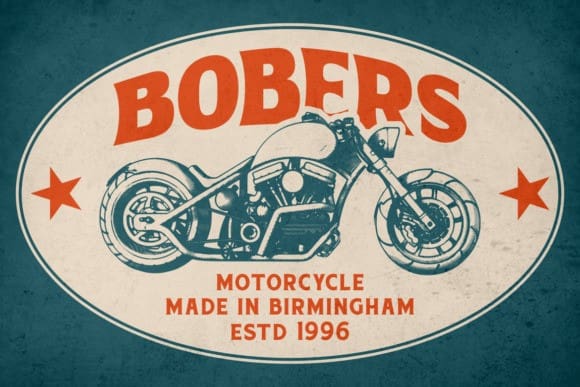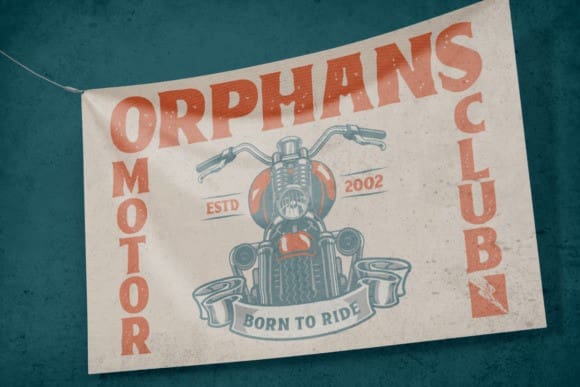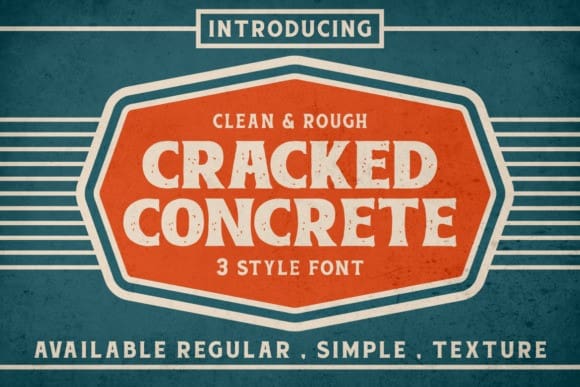
Cracked Concrete Font
Cracked Concrete Font – Vintage Serif Font is a typographical masterpiece that instantly transports you to the golden age of classic design. This font exudes timeless charm with its bold, classic serif characters that embrace the aesthetics of retro and vintage design.
The font offers two distinct versions to cater to your design needs: a clean variant for a polished and refined look, and a textured version that adds depth and character to your creations. Additionally, it provides two thickness options, regular and bold, allowing versatility in your projects.
Cracked Concrete – Vintage Serif Font is the perfect choice for logos, invitations, packaging, posters, titles, businesses, greeting cards, magazines, and any design projects that seek to capture the essence of retro and classic themes.
Unleash the nostalgia and classic elegance of Cracked Concrete, and let your designs shine with vintage sophistication.